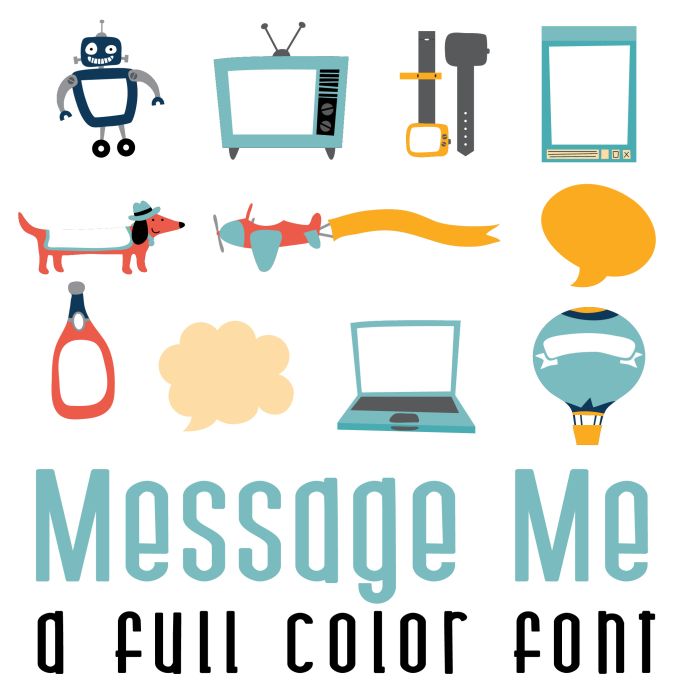
This fun full color font features 26 journaling and message boxes. Perfect for classrooms, teachers, gifts, decor, scrap book pages, planner stickers and more!